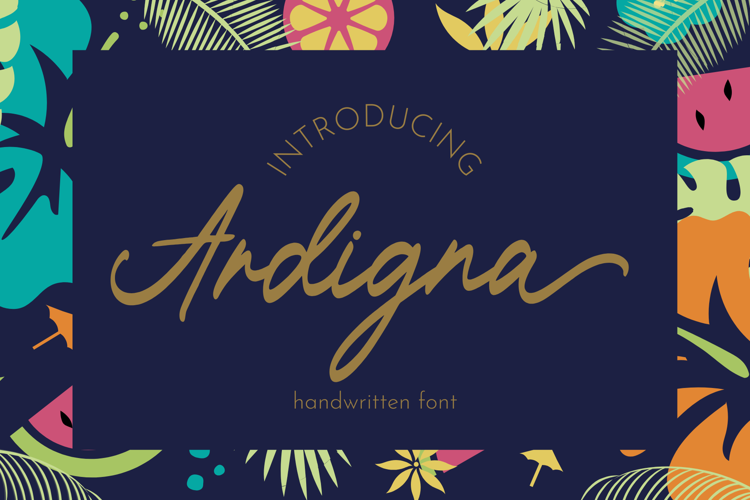
Ardigna - Script Font
Ardigna
Ardigna Handwritten Script Font is a charming and elegant typeface with a handcrafted feel. Its delicate strokes and flowing curves give it a romantic and whimsical vibe, perfect for wedding invitations, greeting cards, and branding materials. The font exudes a sense of warmth and individual touch, making it ideal for adding a unique and individual flair to any design project.